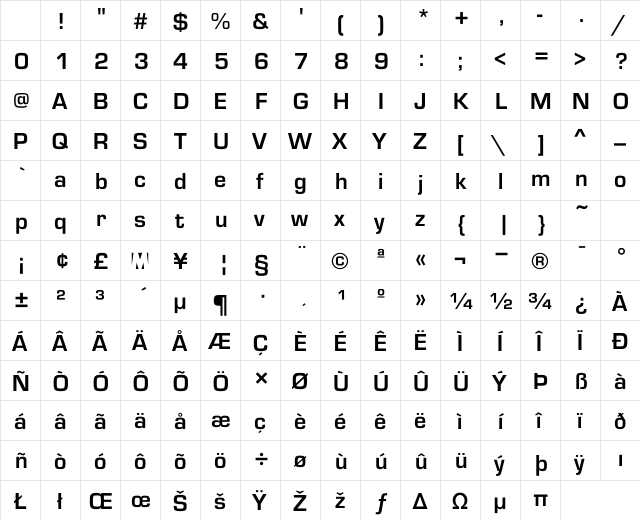
Complete MicroSquare Bold glyph index. Displaying only characters natively supported by MicroSquare Bold font.
MicroSquare is a composed and adaptable typeface that performs quietly and consistently across a wide range of design contexts. Its bold stroke weight gives it real presence on the page.